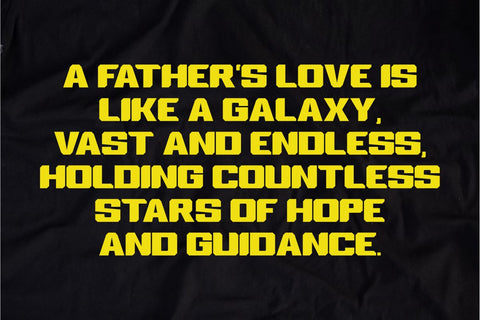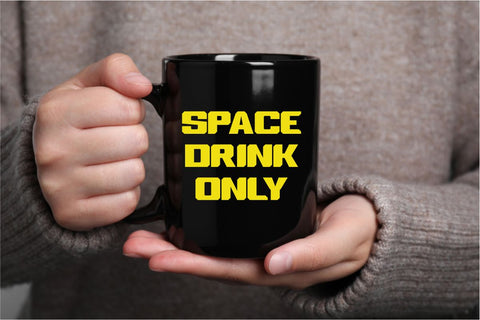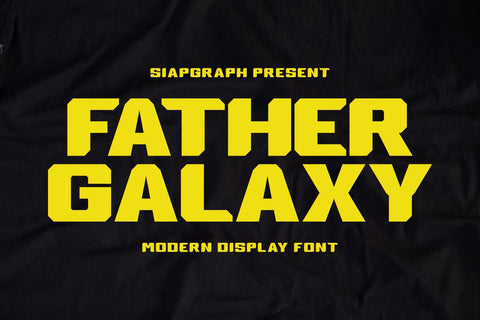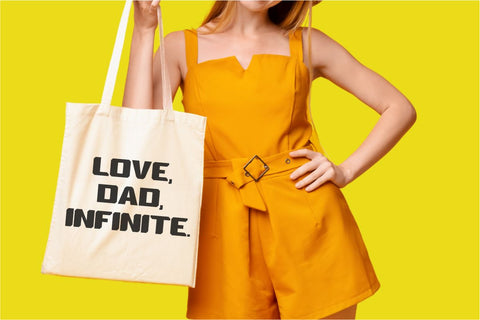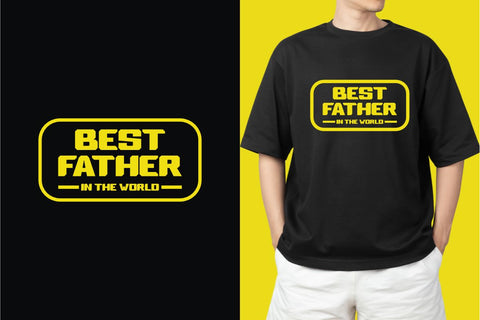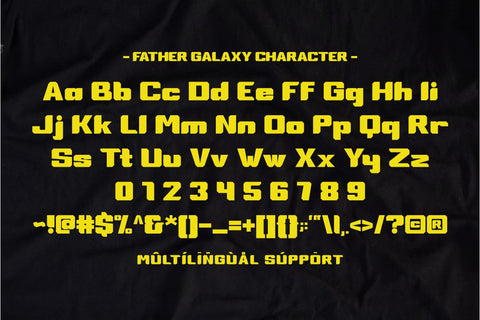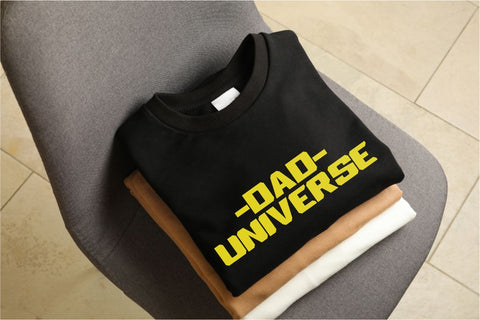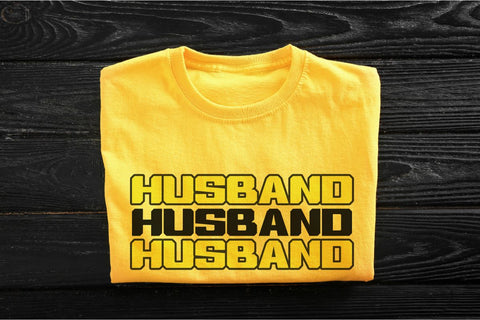
Father Galaxy - Futuristic Display Font
Father Galaxy is a bold and futuristic display font inspired by space, sci-fi, and galactic adventures. With sharp angles, geometric shapes, and a strong presence, this font is perfect for Print On Demand (POD) products such as t-shirts, posters, mugs, stickers, book covers, and more. Ideal for designs related to space themes, gaming, movies, and pop culture, Father Galaxy brings a powerful and cinematic vibe to your creative projects. Whether you're designing fan merchandise or eye-catching graphics, this font will take your design to a whole new galaxy.